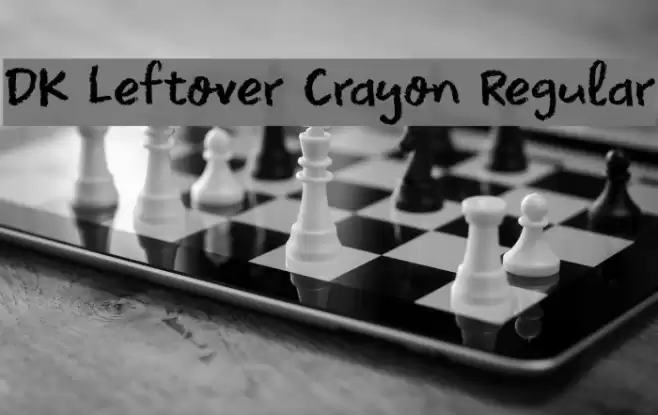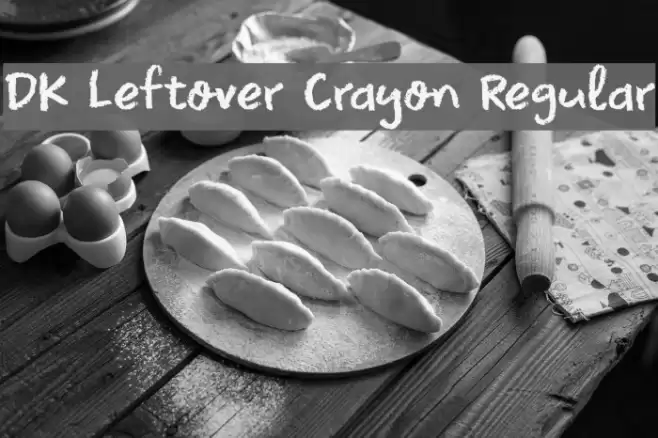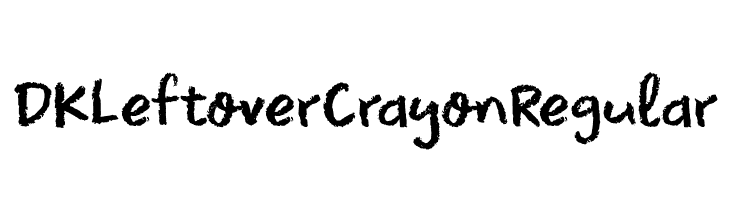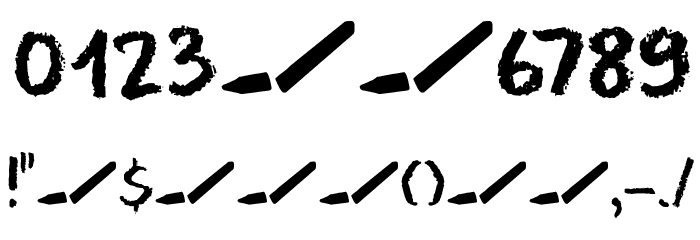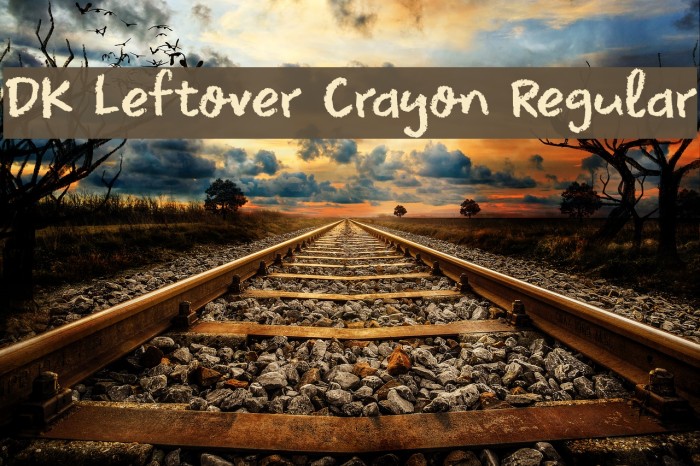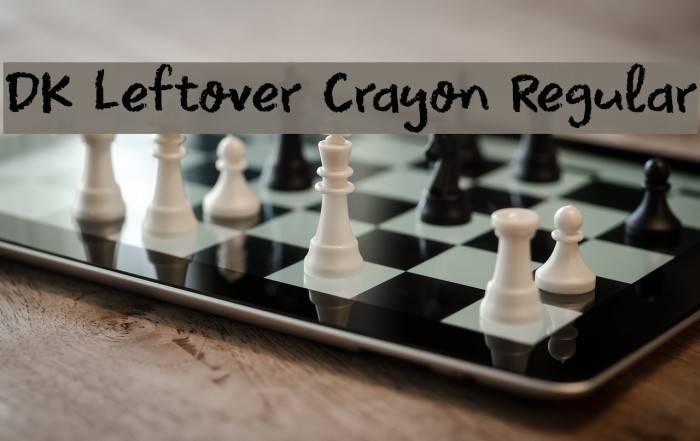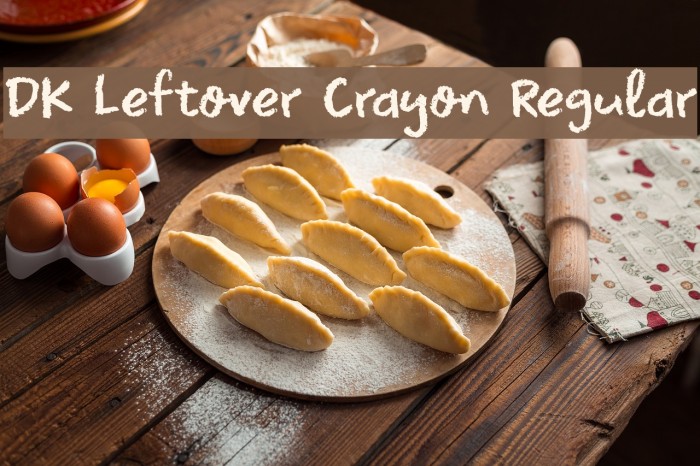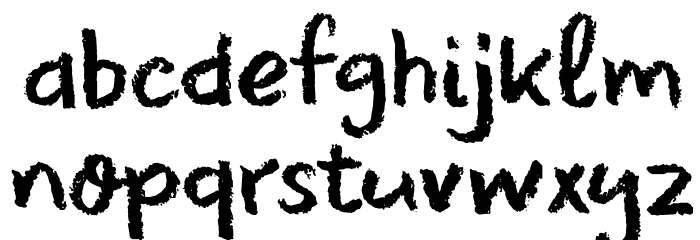
DK Leftover Crayon Regular Font
DK Leftover Crayon Regular Description
This font features a playful and textured appearance, reminiscent of letters drawn with a crayon. The edges are rough and uneven, giving it a handcrafted and informal look. The uppercase and lowercase letters maintain a consistent style, with a bold and substantial presence. The numbers and special characters follow the same textured style, ensuring uniformity across all glyphs. This font exudes a sense of creativity and spontaneity, making it ideal for projects that require a casual and artistic touch.
A playful, textured font with a crayon-like appearance from Handwritten fonts.
- Proposed Projects: Ideal for children's book covers, playful posters, art projects, and creative branding.
- Overall Style: Playful, Artistic
- Use Case: Headlines, Posters, Creative Branding